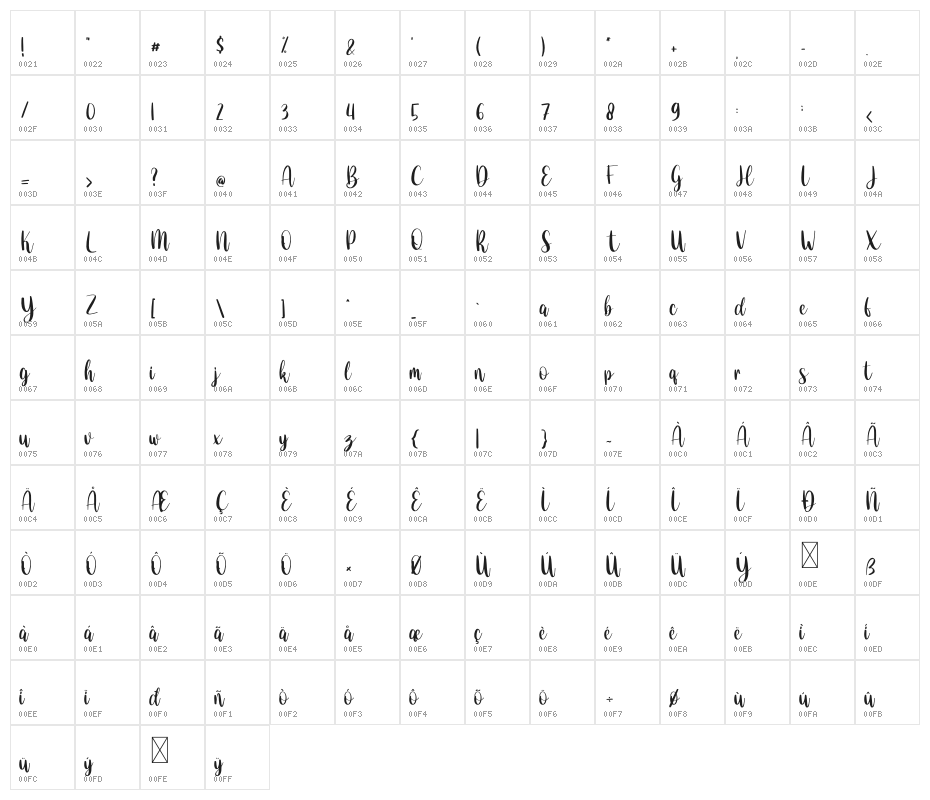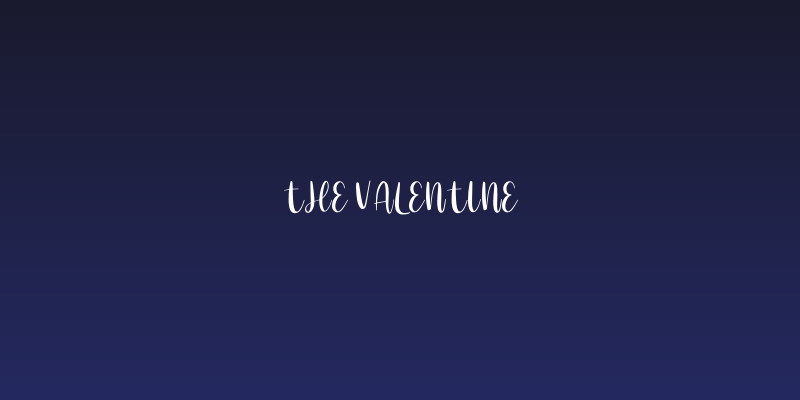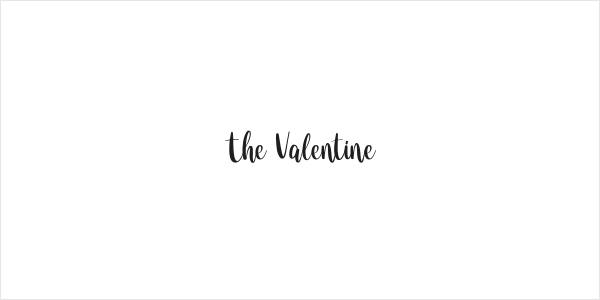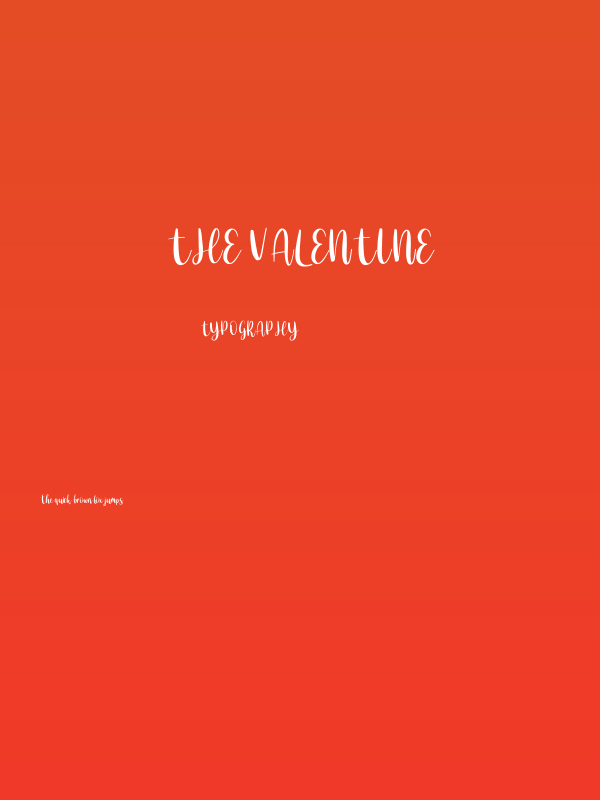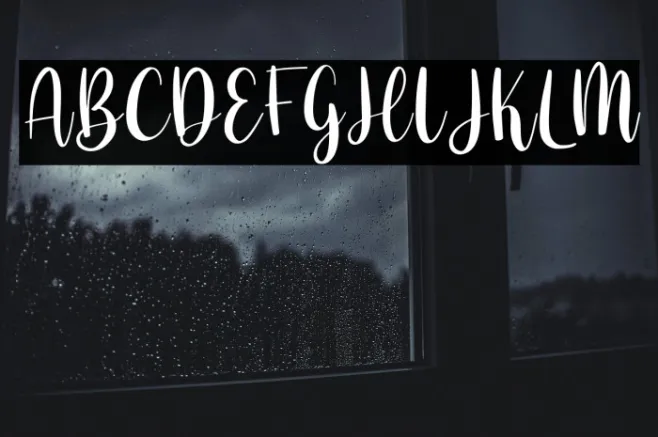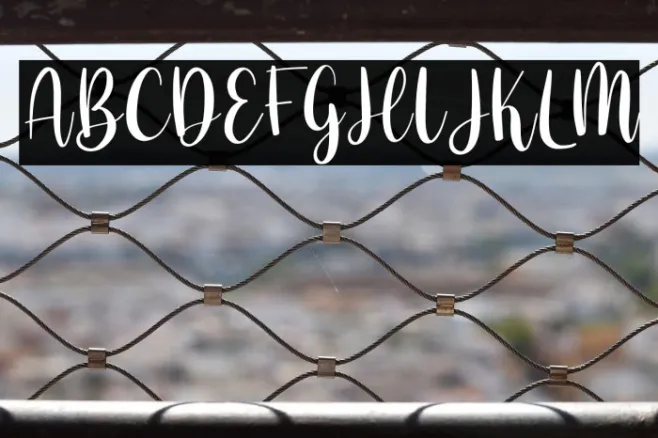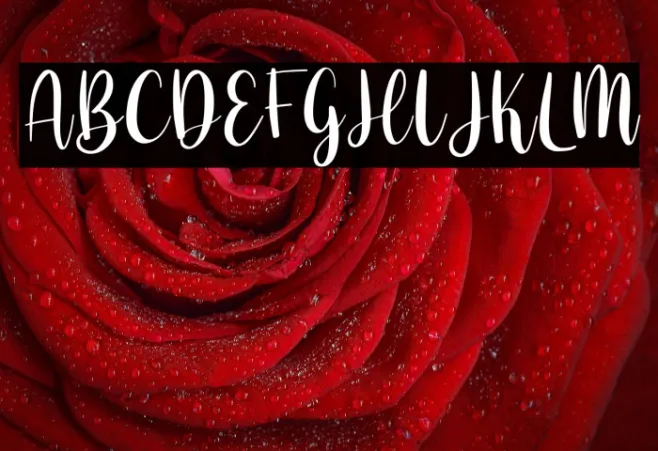
The Valentine Font
The Valentine Description
This font features a playful and elegant script style with a handwritten appearance. The letters are fluid and connected, giving a sense of movement and grace. The uppercase letters are bold and expressive, while the lowercase letters maintain a consistent flow. The numbers and special characters complement the overall style, adding versatility. The strokes vary in thickness, providing a dynamic contrast that enhances readability while maintaining a decorative flair. This font is perfect for projects that require a personal touch, such as invitations, greeting cards, and branding materials.